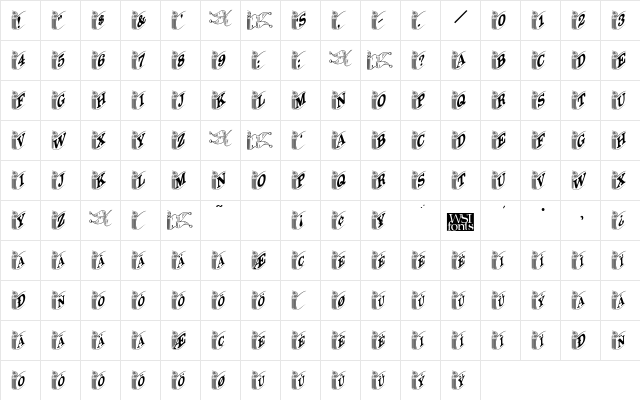
Ribbons Regular Font Preview
Ribbons Regular
Ribbons Regular Font Details
Design Context for Ribbons Typeface
Ribbons is a composed and adaptable typeface that performs quietly and consistently across a wide range of design contexts.